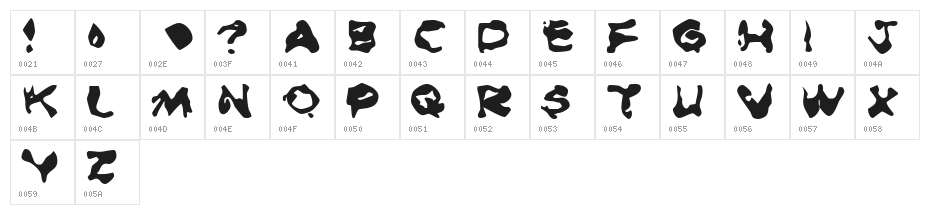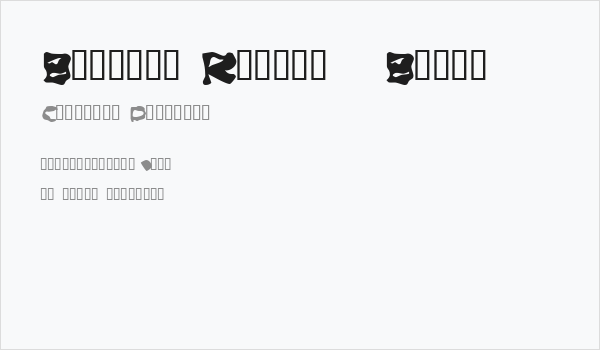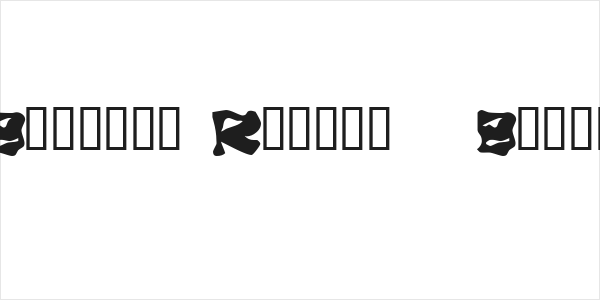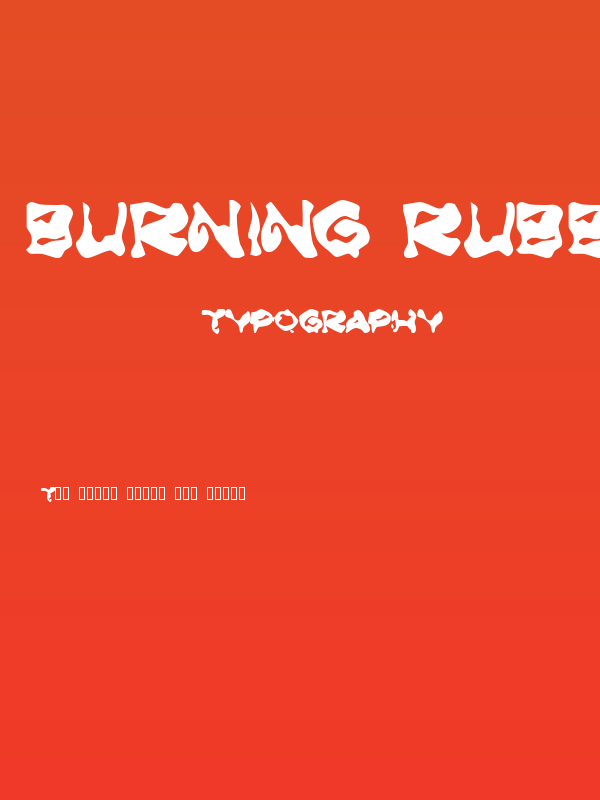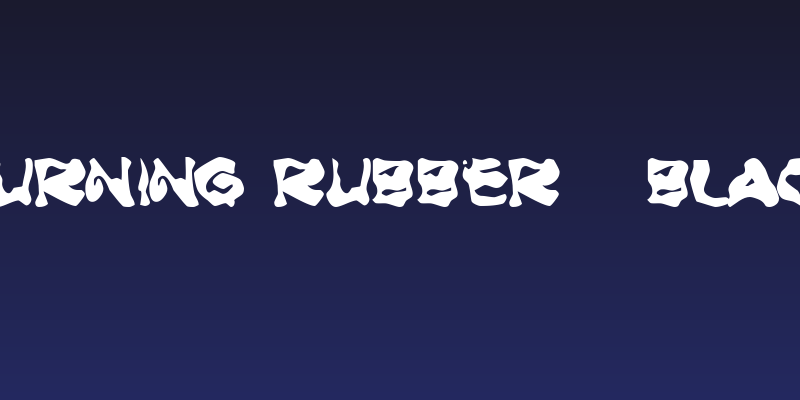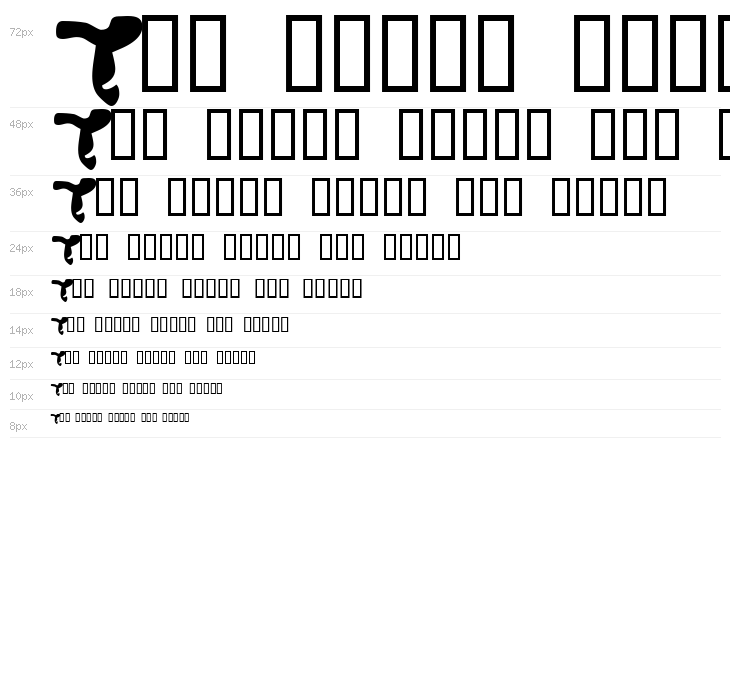
Burning Rubber Black Font
Burning Rubber Black Description
This font features a bold and dynamic style with a distinctly rugged and textured appearance. The characters appear as if they are melting or dripping, giving a sense of movement and energy. The uppercase and lowercase letters maintain a consistent design, with exaggerated curves and irregular edges that add to the chaotic yet artistic feel. The numbers and special characters follow the same aesthetic, ensuring a cohesive look across all elements. This font is ideal for projects that require a bold statement or a sense of rebellion and creativity.
| Proposed Projects | Ideal for posters, album covers, extreme sports branding, or any project needing a bold, rebellious look. |